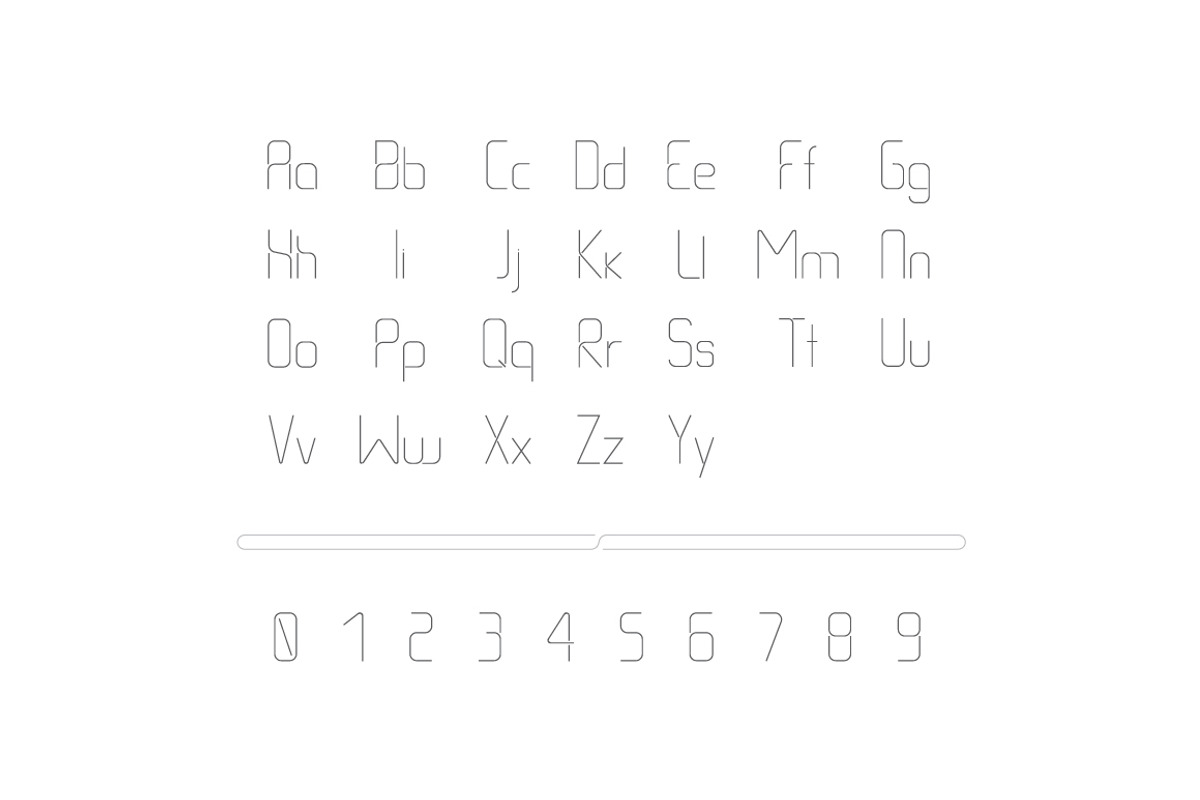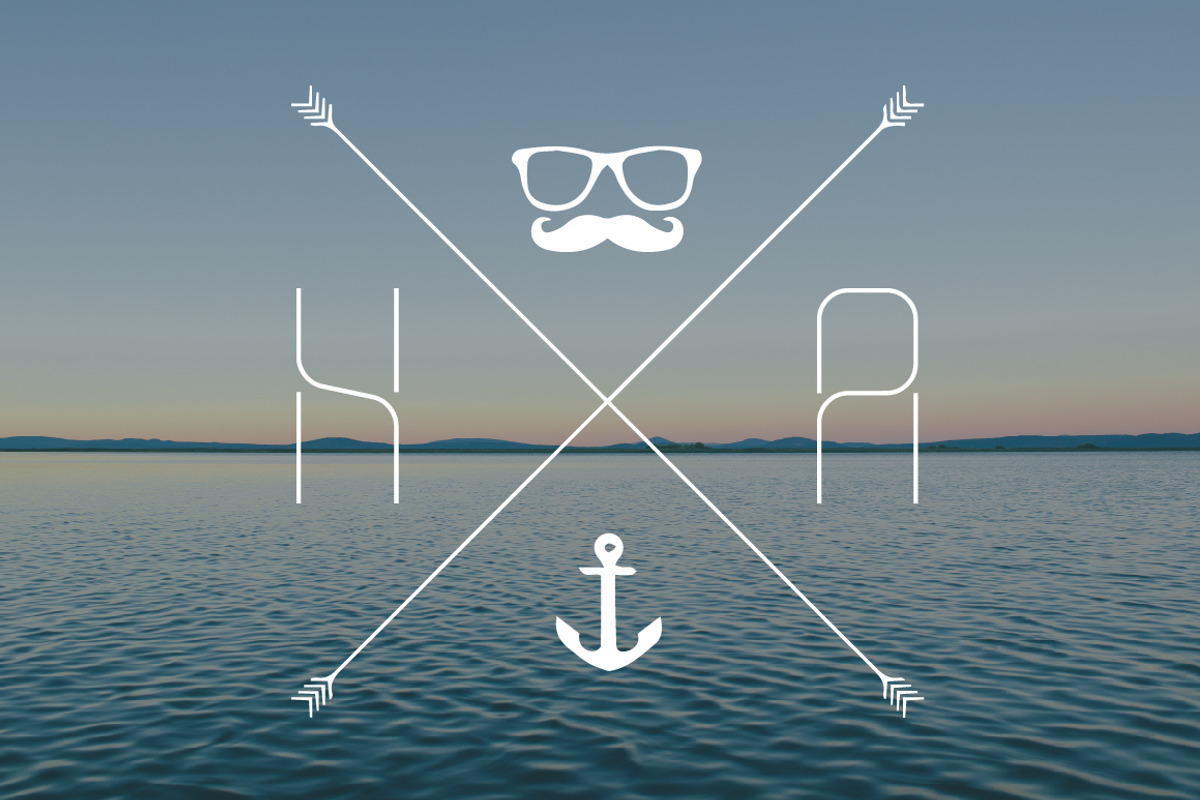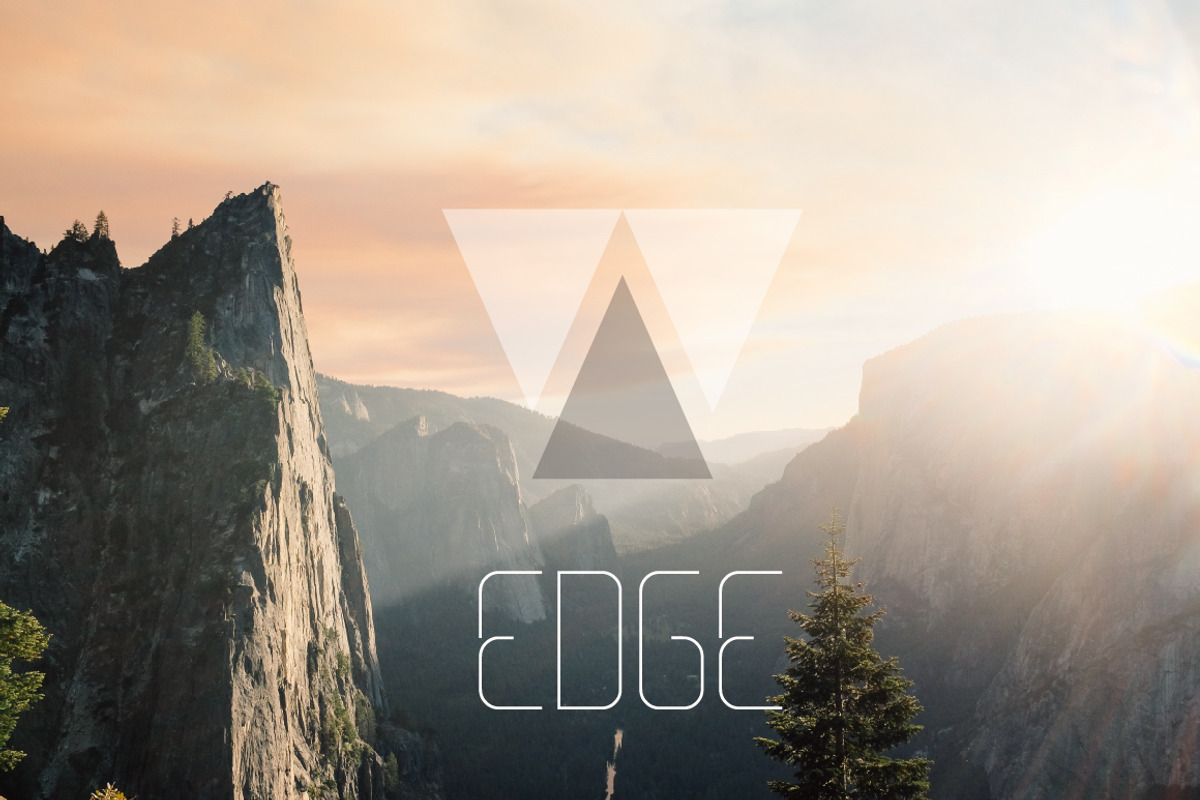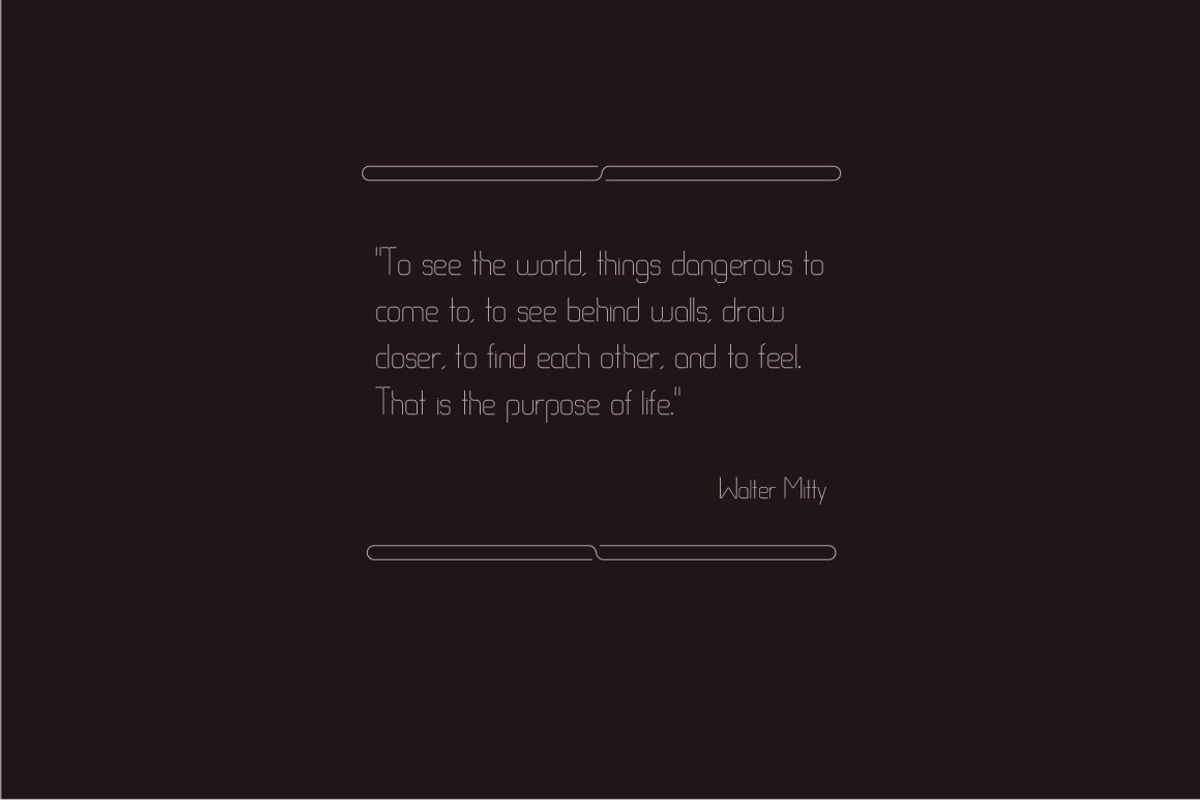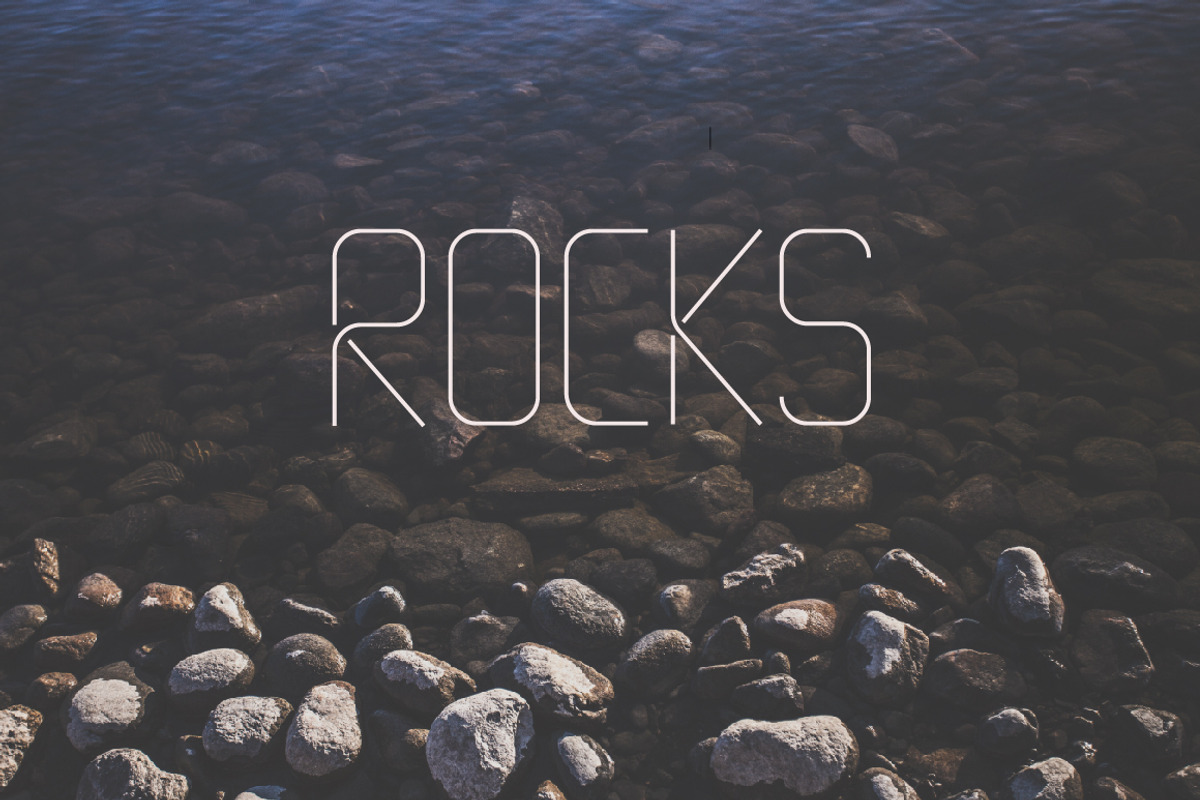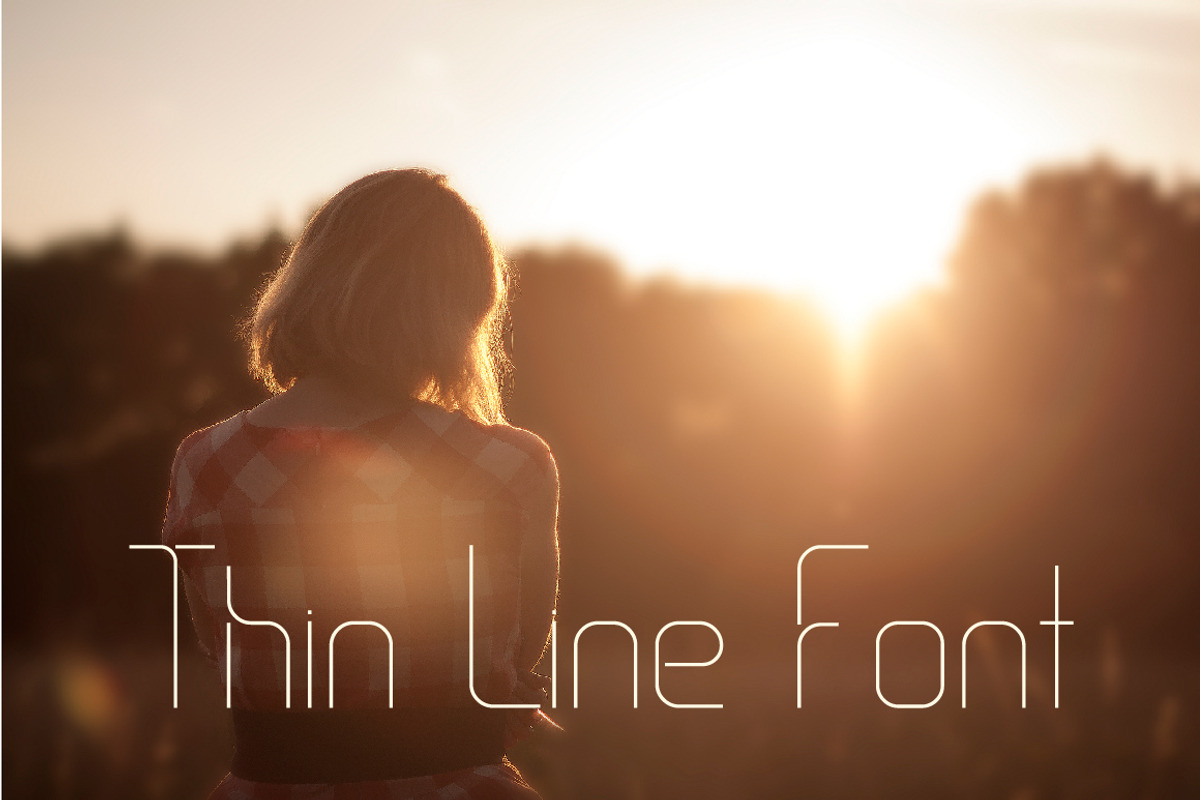
Thin Line Font
Thin Line Font by Wild Ones is a font selected for branding, posters, packaging, typography.
Why Thin Line Font is worth a look
Thin Line Font by Wild Ones fits naturally into Branding, posters, packaging, typography.